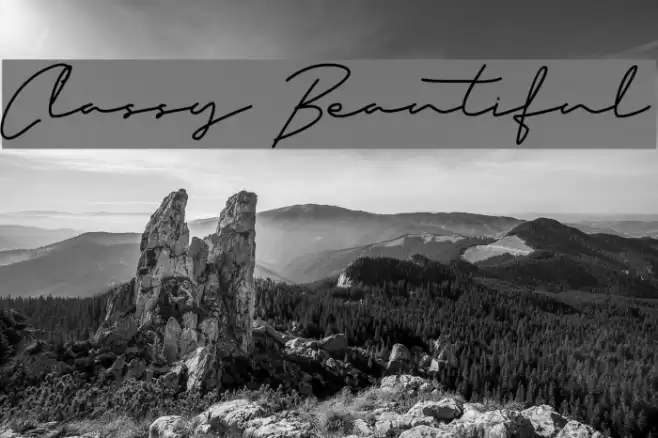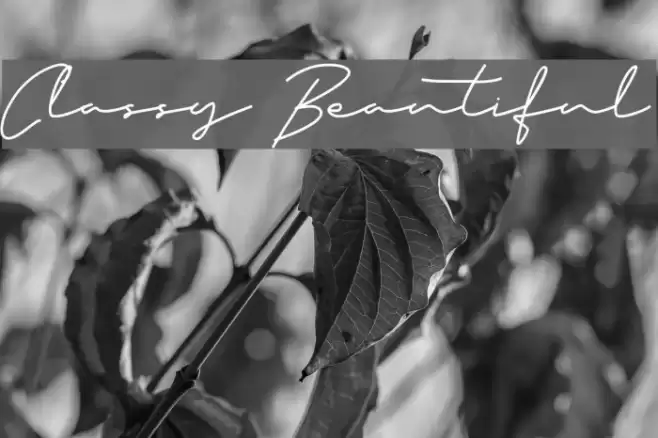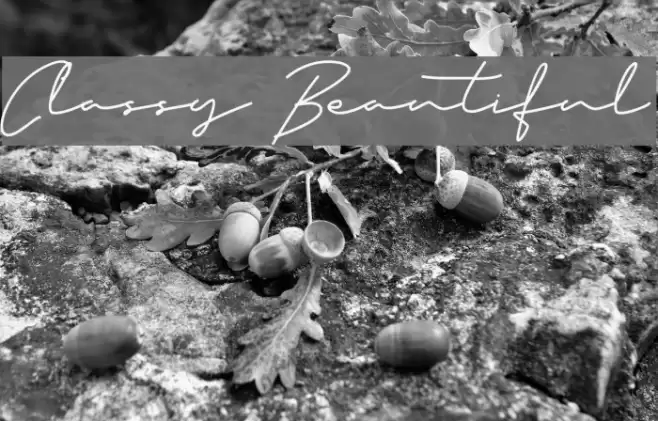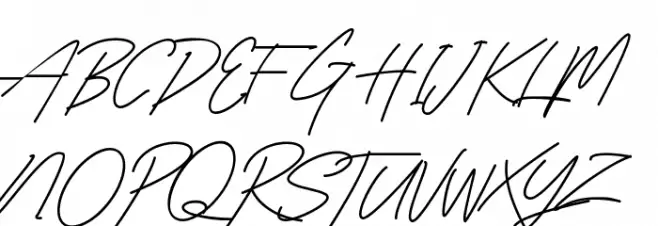
Classy Beautiful Font
Classy Beautiful Description
This elegant script font features a fluid, handwritten style with a sophisticated flair. The letters are connected seamlessly, creating a continuous flow that enhances its graceful appearance. The uppercase letters are tall and slightly slanted, while the lowercase letters maintain a consistent height, adding to the font's readability. The strokes are thin and delicate, giving it a refined and airy feel. This font exudes a sense of elegance and charm, making it ideal for projects that require a touch of class and sophistication.
A graceful, handwritten script font with elegant, flowing strokes from Uncategorized fonts.
- Proposed Projects: Ideal for wedding invitations, elegant branding, personal signatures, and upscale packaging designs.
- Weight: Light
- Overall Style: Elegant
- Use Case: Logos, Invitations, Branding